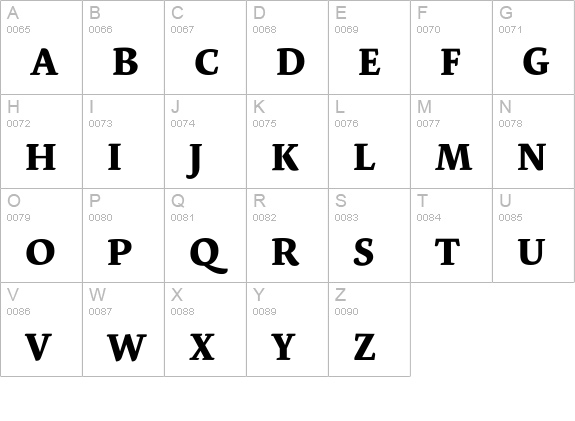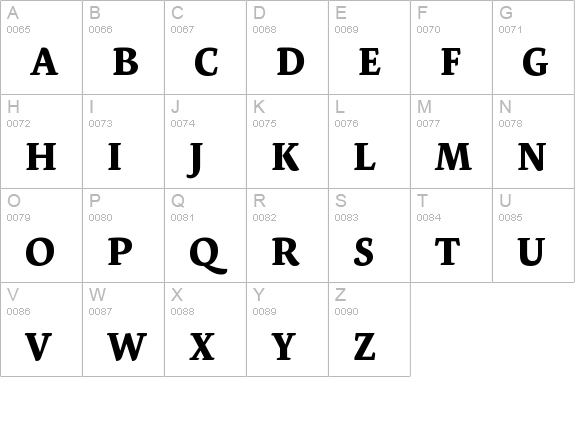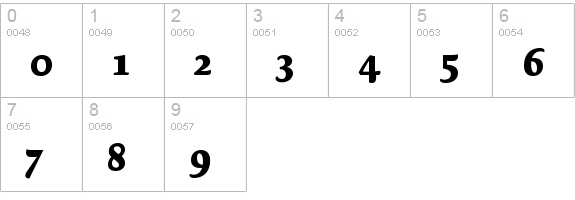
Dolly-Bold Font Details
Dolly-Bold is a strong, high-contrast variant in the Dolly typeface family \xE2\x80\x94 well suited to headlines, attention-grabbing titles, and strong calls-to-action.
Dolly-Bold is a striking and versatile font that is sure to make a bold statement in any design project. With its strong, clean lines and commanding presence, Dolly-Bold is perfect for headlines, logos, posters, and more. This font exudes confidence and power, making it ideal for projects that demand attention. The best part? Dolly-Bold is available for free download at FontsMarket.com. You can easily add this dynamic font to your collection without breaking the bank. Don't miss out on the opportunity to elevate your designs with the impactful Dolly-Bold font. Download it today and unleash its full potential in your creative projects.